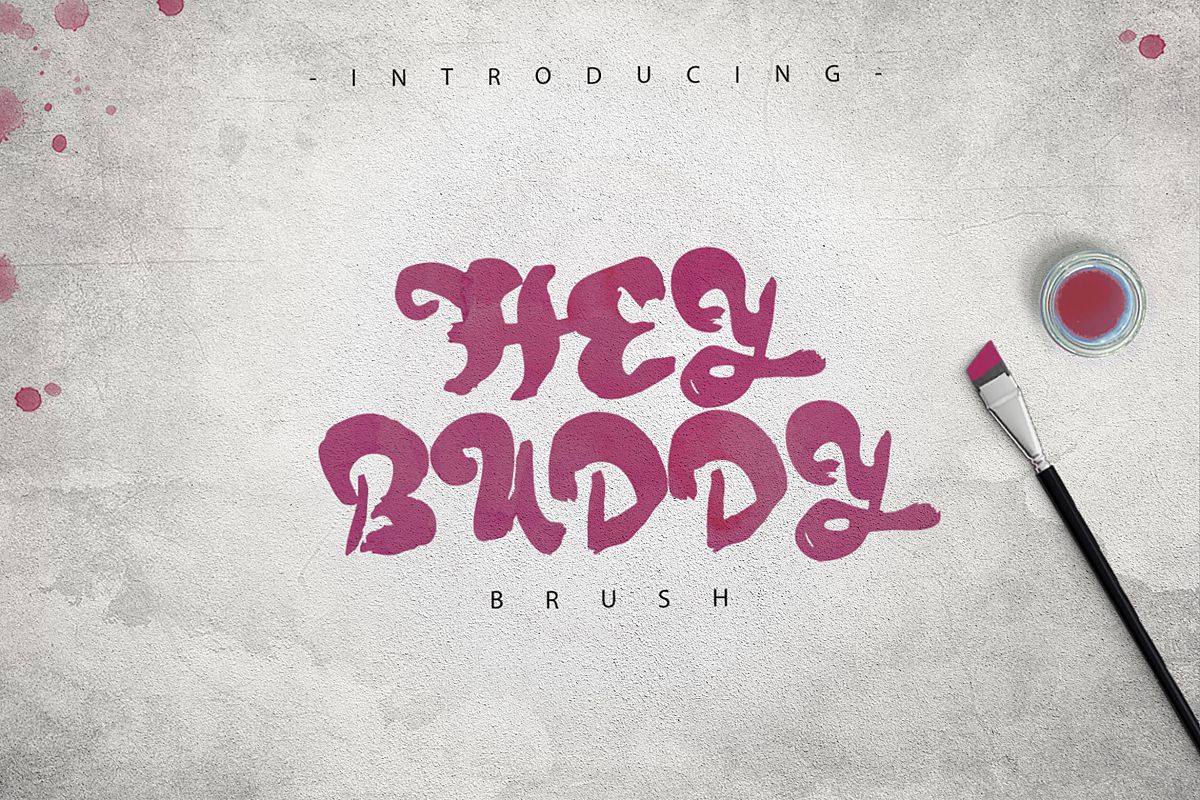
Hey Buddy!
HeyBuddyBrush.
Hey Buddy is the hardest and craziest handmade typography! Perfect for logo designs. Lowercase and uppercase, numbers and webfont.